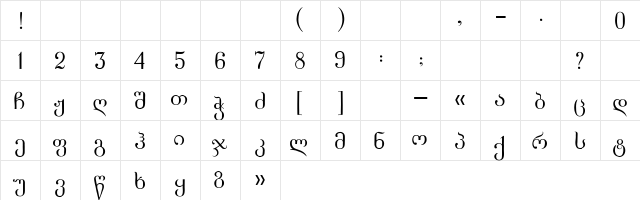
Lado Grigolia Regular
Design Context for Lado Grigolia Typeface
Lado Grigolia takes a measured approach to typography — its balanced proportions and neutral character make it a reliable workhorse for both digital and print work.